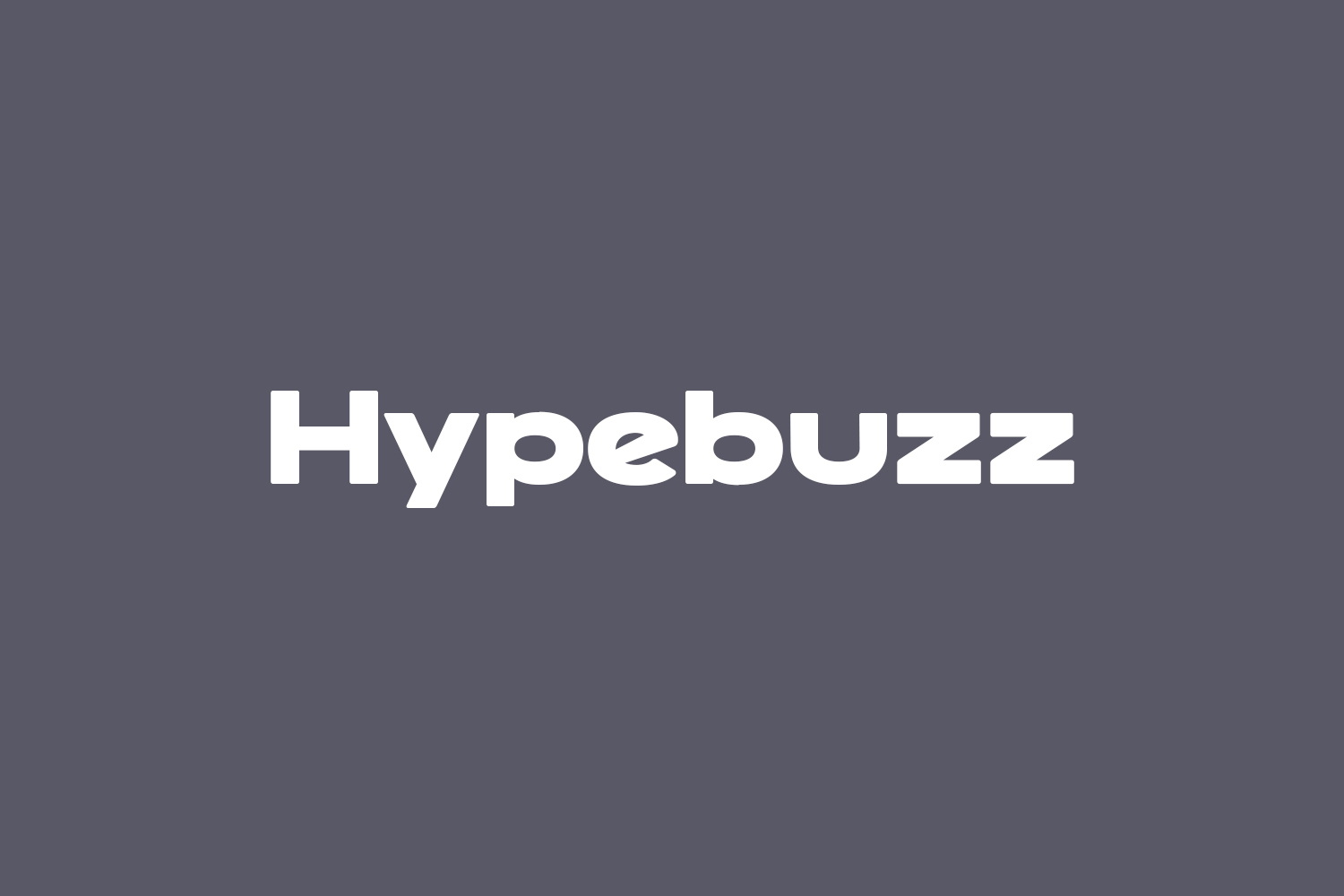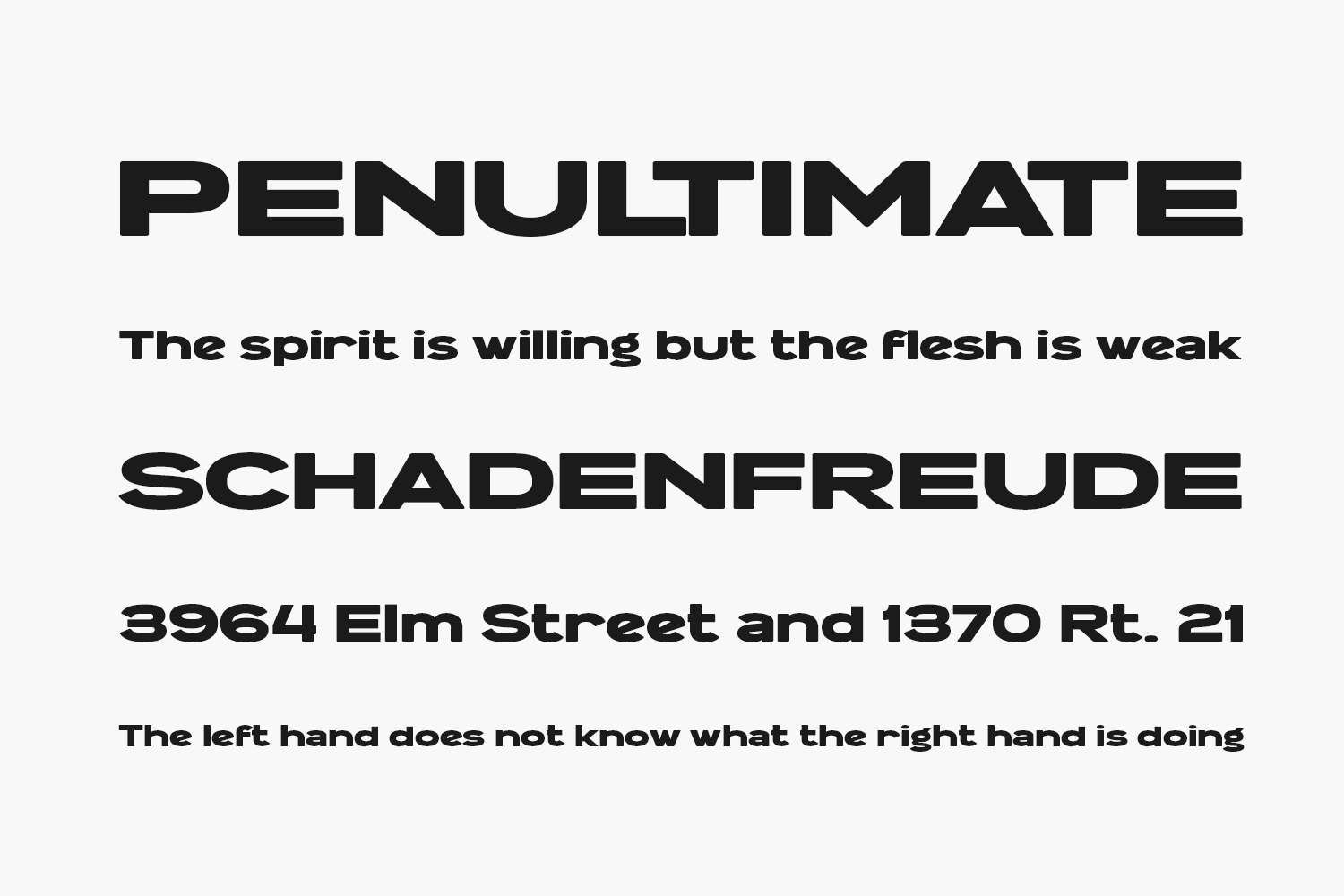
Hypebuzz is a bold urban sans‑serif font by Ikiiko Type with a distinctive wide shape and street-style vibe. This demo version features Regular style, making it ideal for posters, party flyers, magazine layouts, logos, and trendy quotes. Designed to capture the spirit of hip‑hop and youth culture, Hypebuzz brings instant attitude to any visual. It supports basic Latin characters and is free for personal use. For commercial or corporate use, acquire a license from the designer’s site.
- Wide Urban Forms: Bold, extended letter shapes deliver strong visual presence.
- Two Vibrant Styles: Comes in Regular and Outline variants for layered design.
- Youth Culture Energy: Perfect for streetwear, hip‑hop, and party graphics.
- Creative Typography: Standout choice for magazine covers, apparel branding, and editorial headers.
- Posters & Flyers: Eye-catching for club events, music shows, and city parties.
- Logos & Branding: Bold wordmarks for streetwear, skate brands, and urban cafés.
- Magazine & Editorial Headers: Fits dynamic layouts and visual-impact covers.
- Social Media Graphics: Use outline style for trendy Instagram quotes or TikTok overlays.
- Merch & Apparel: Looks great on T-shirts, caps, and promotional swag.
Use Hypebuzz in large display sizes (36pt+) to maximise visual impact. Combine Regular and Outline layers to create a ‘stacked’ effect. Pair with clean sans‑serifs like Roxeston or Celebes for balance. Use bold color contrasts—black, white, neon—for true street-level attitude.